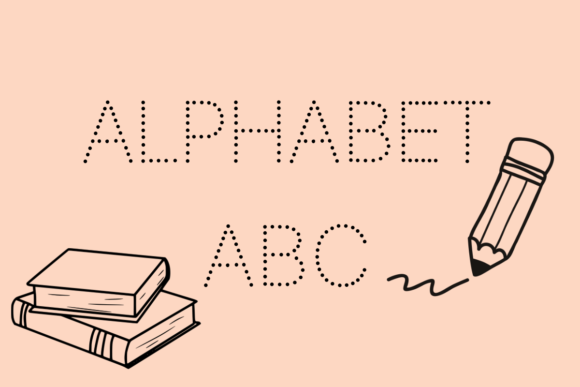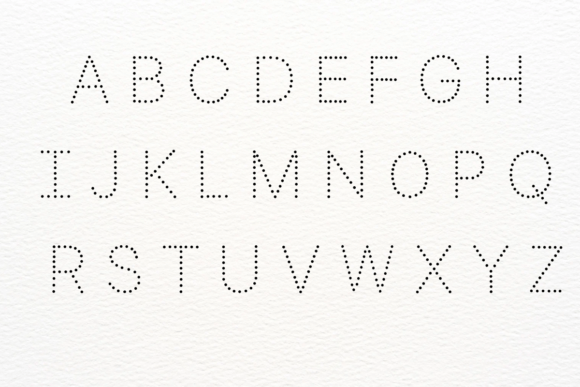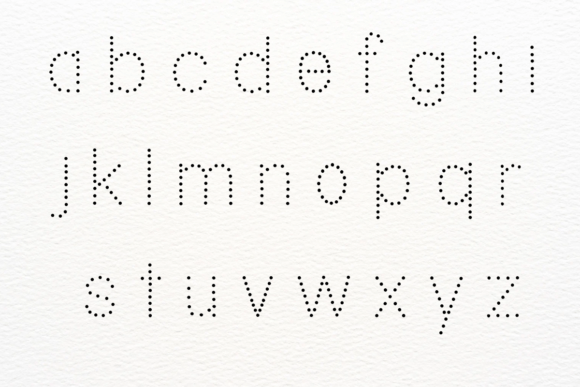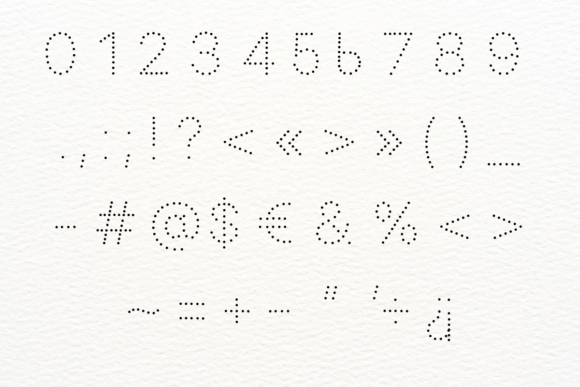
Alphabet Abc Font Font
About the Alphabet Abc Font Font
Explore the possibilities with Alphabet Abc Font Font, a font that offers both beauty and functionality. Introducing dot-to-dot exercises is a fantastic method to bolster children’s writing proficiency in an enjoyable and efficient manner. By integrating special characters, these exercises become even more captivating. This approach not only enhances alphabet acquisition but also makes the learning process highly engaging. Ultimately, it offers a blend of fun and utility, catering to the needs of both children and users.
Alphabet Abc Font is ideally suited for children’s books, educational materials, and playful branding projects where a friendly and approachable aesthetic is desired. Its charming character works well in headlines, short text blocks, and playful logos. However, its limited character set and relatively informal style make it unsuitable for body text, long-form content, or applications requiring high readability, such as website UI.
Pairing Alphabet Abc Font with a clean sans-serif like Open Sans for body text would create a balanced and effective visual hierarchy. For a more sophisticated feel, consider pairing it with a classic serif like Garamond for headings and supporting elements. Avoid pairing it with overly decorative or highly contrasting fonts, as this might detract from its unique charm.
The font exudes a friendly, slightly whimsical personality. Its simple forms and playful character make it perfect for projects targeting young audiences or conveying a lighthearted and approachable brand identity.